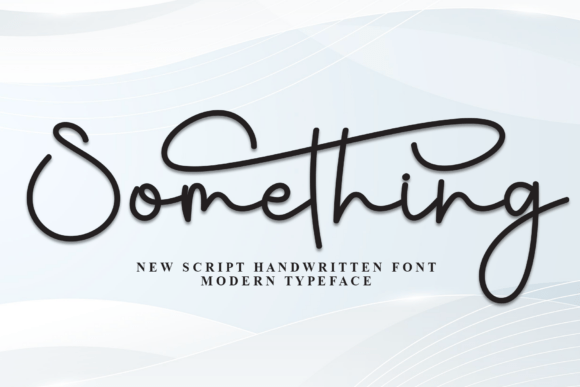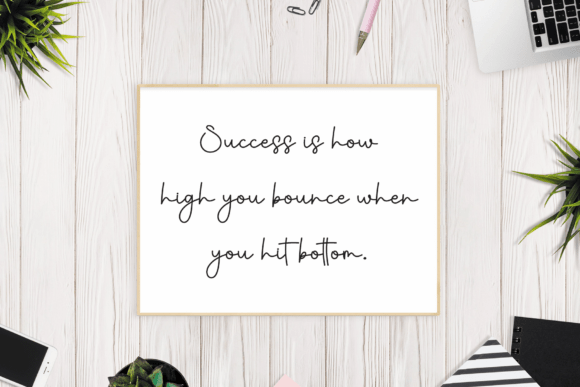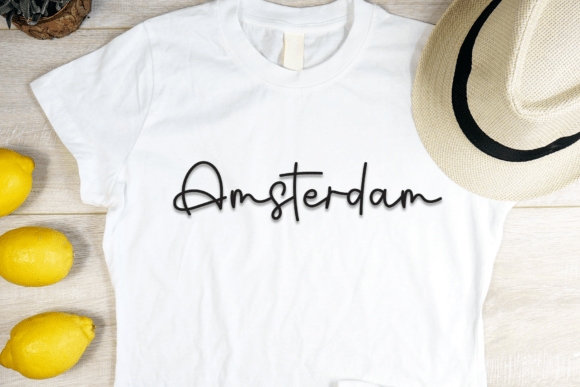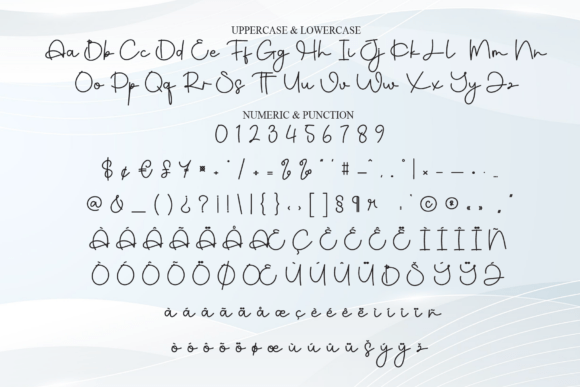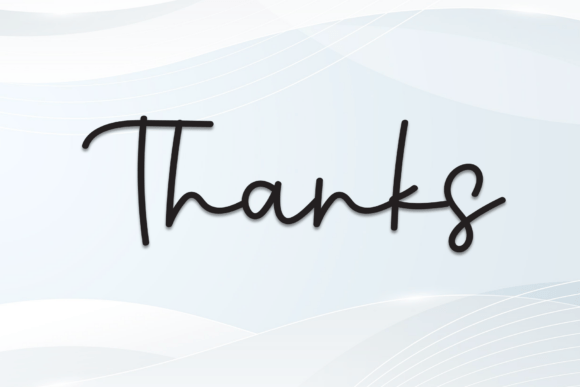
Something Font
Elegant, flowing, and full of charm — this script font brings a touch of sophistication to any design. Perfect for weddings, branding, social media, and invitations, it features smooth curves and graceful swashes that elevate your text with a handwritten, romantic feel. Whether you’re crafting a signature logo or heartfelt quote, this font adds a personal and stylish flair.